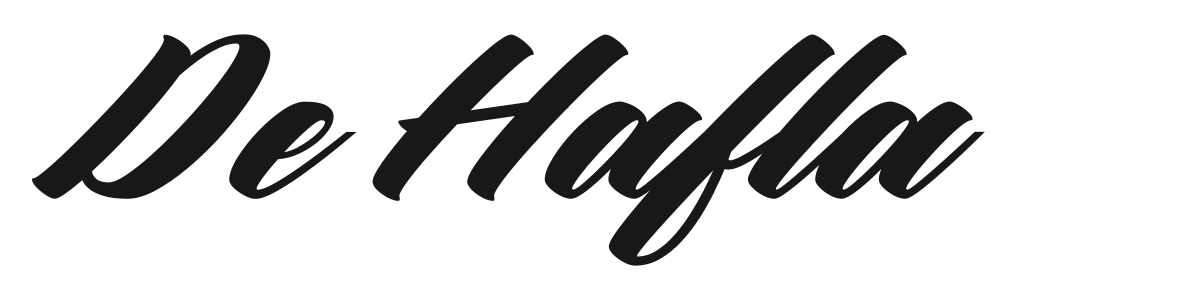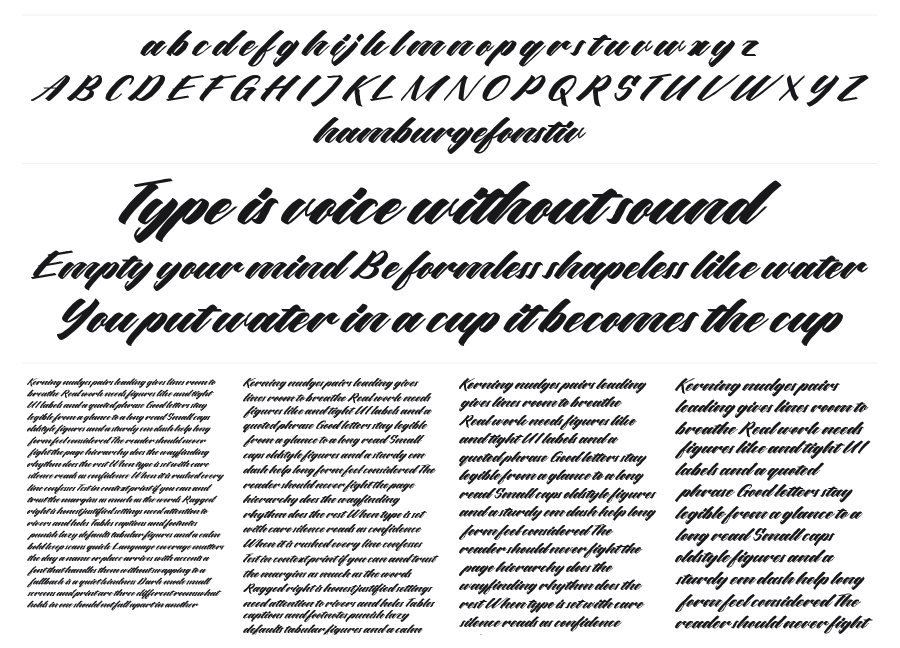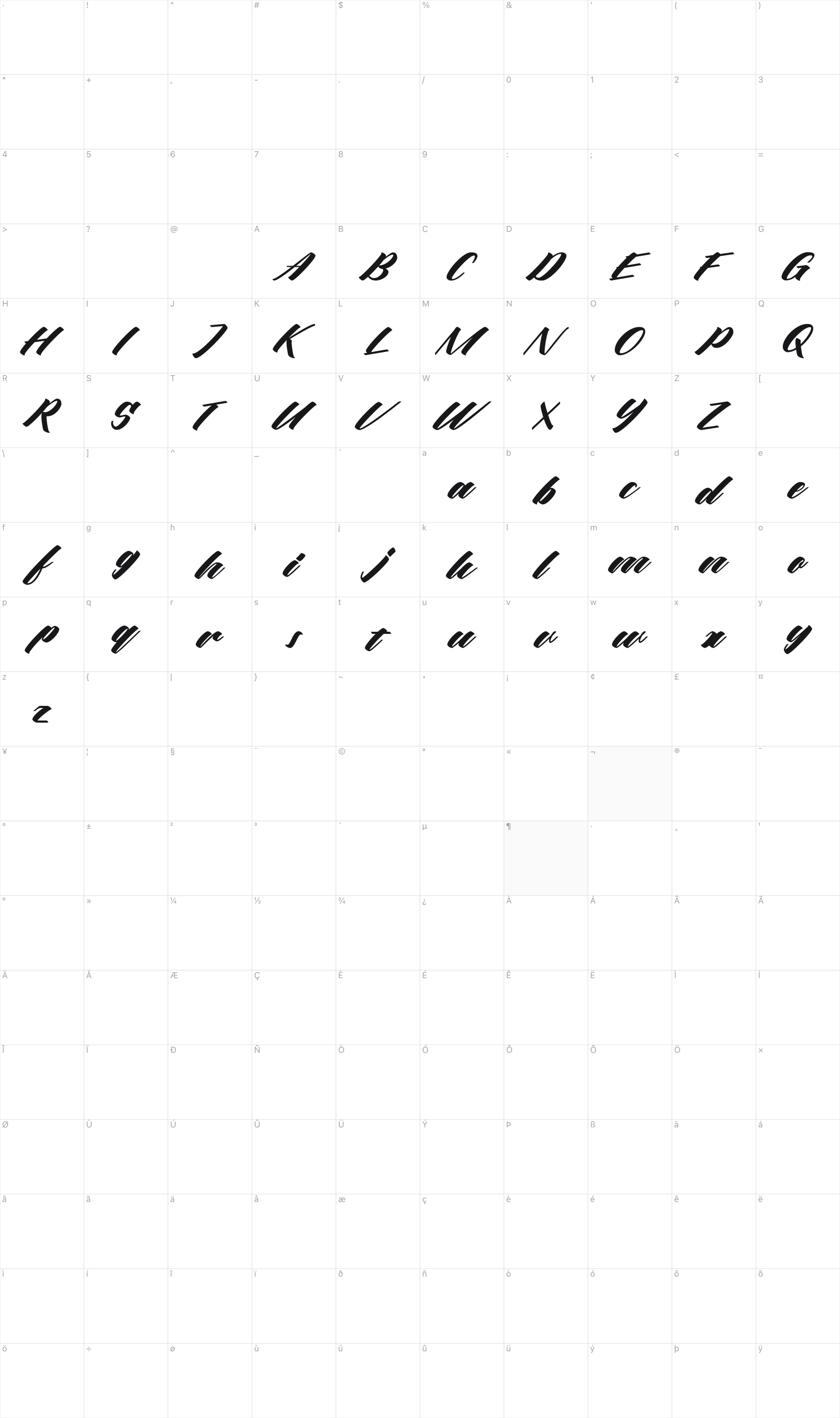
De Hafla
De Hafla is a bold brush script with heavy swelling downstrokes, sharp hairline upstrokes, and looping decorative ascenders that give it real momentum on the page. The high stroke contrast and strong italic lean put it squarely in the tradition of American hand-lettering, with a contemporary confidence. It works at large sizes where the energy of the brushwork can breathe.